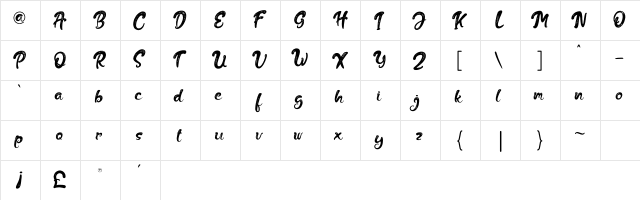
The Fox Tail Rough Regular
| Designer | Donis Miftahudin |
Design Context for The Fox Tail Rough Typeface
The Fox Tail Rough trades polish for personality, using distressed and eroded forms to bring grit and attitude to creative work.
Suited to punk-influenced zines, underground music branding, streetwear, and raw, anti-corporate design.
Pro Tip: Pair The Fox Tail Rough with intentionally raw or lo-fi design elements. Fighting against it with overly polished surroundings will undermine its personality.